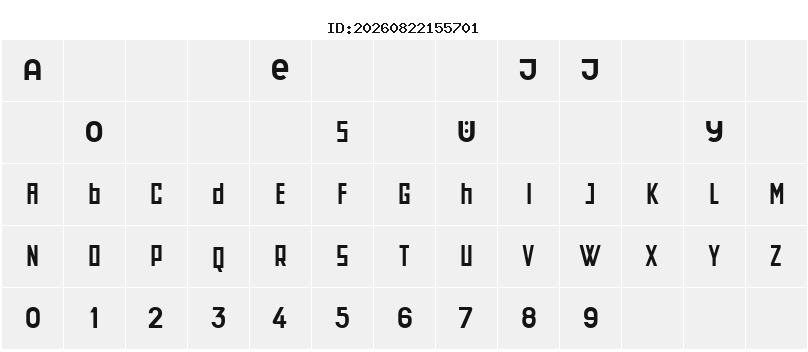
SchwittersArchiType Preview
• Font Name: SchwittersArchiType
• Full Font Name: SchwittersArchiType
About SchwittersArchiType.ttf
SchwittersArchiType.ttf is a modern, elegant sans-serif font designed for ultimate readability and visual harmony. Perfect for branding, headlines, web design, and print materials.